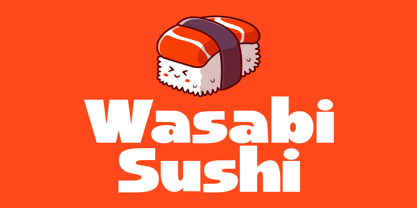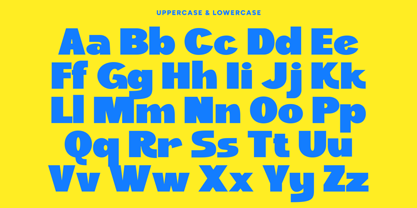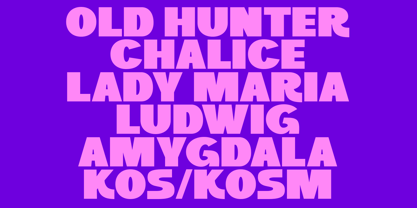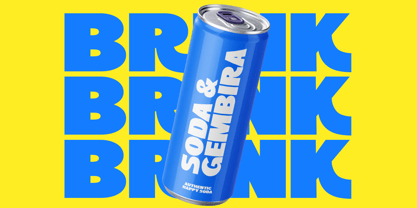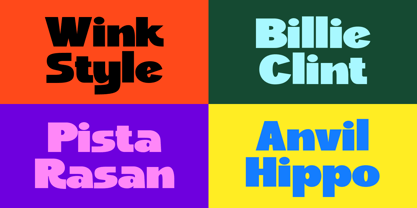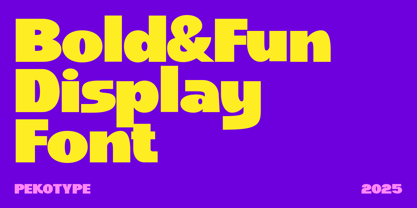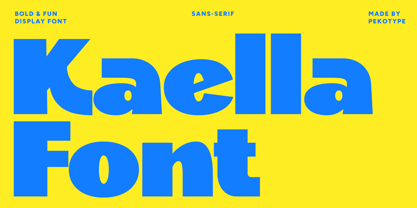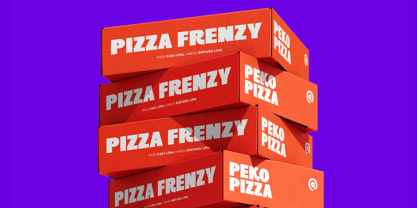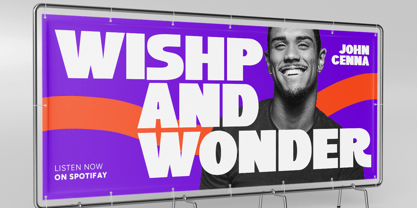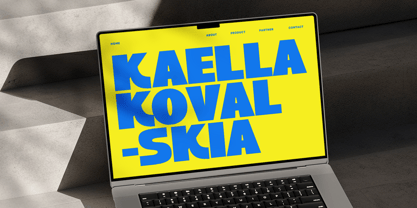
Kaella
La famille de polices Kaella a été conçue par Galang Bryan et publiée par Pekotype. Kaella contient 1 styles. En savoir plus sur cette famille
KAELLA is a bold and playful display font with fun shapes and plenty of personality. Designed to grab attention, it’s perfect for branding, logos, posters, packaging, promotional materials, and social media content. Its unique yet clean letterforms make it easy to use across different projects, helping you create designs that feel modern, energetic, and full of character.